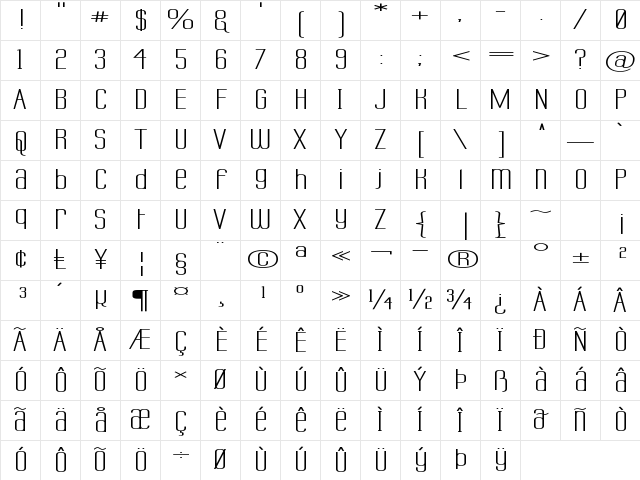
Complete Labtop Unicase Superwide Regular glyph index. Displaying only characters natively supported by Labtop Unicase Superwide Regular font.
Labtop Unicase Superwide is a composed and adaptable typeface that performs quietly and consistently across a wide range of design contexts.